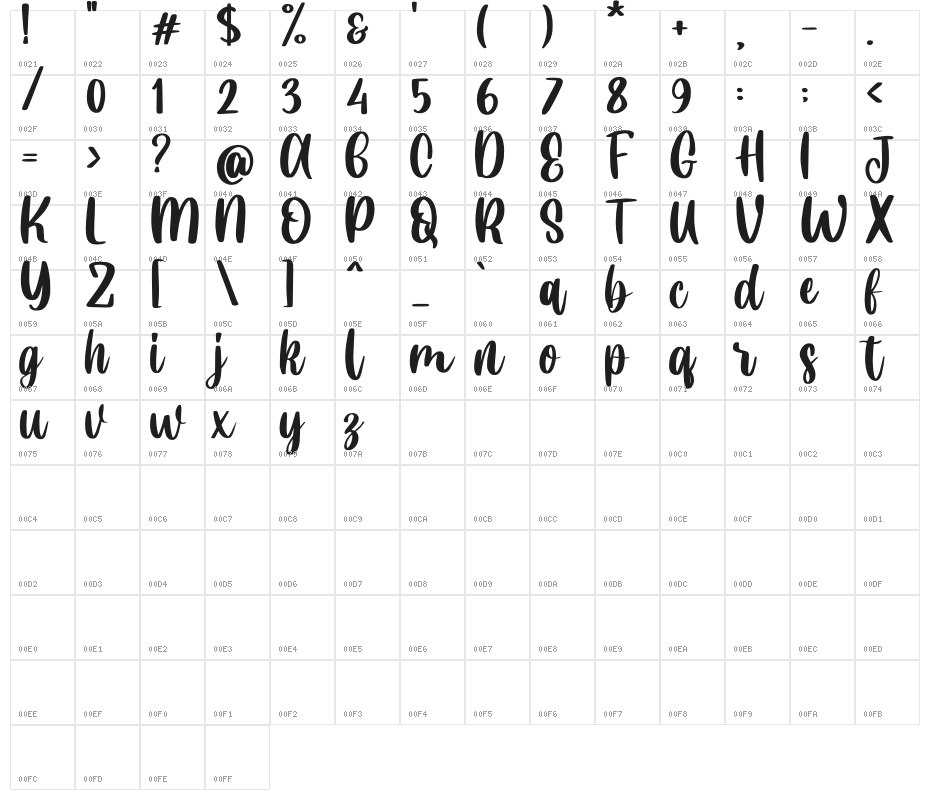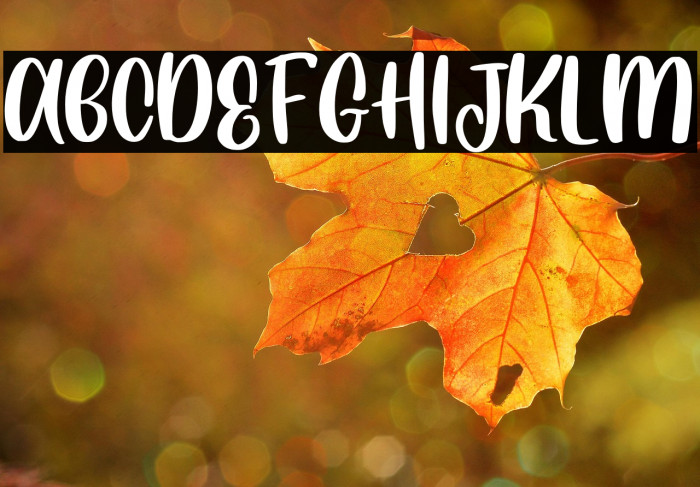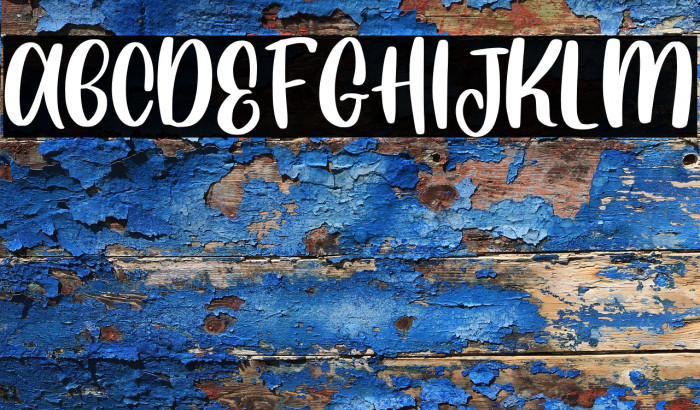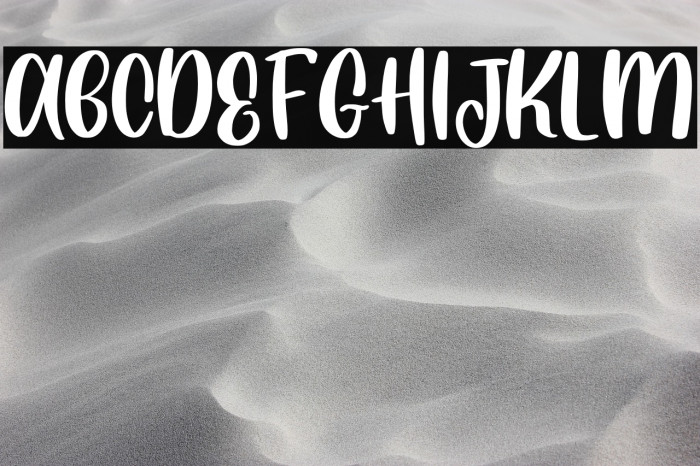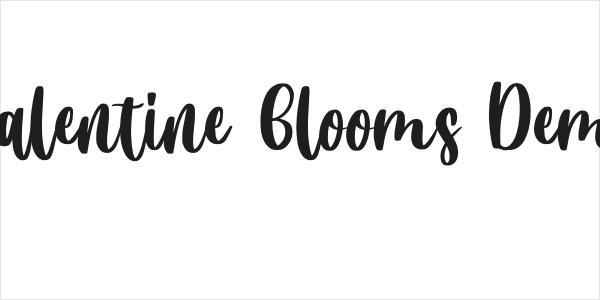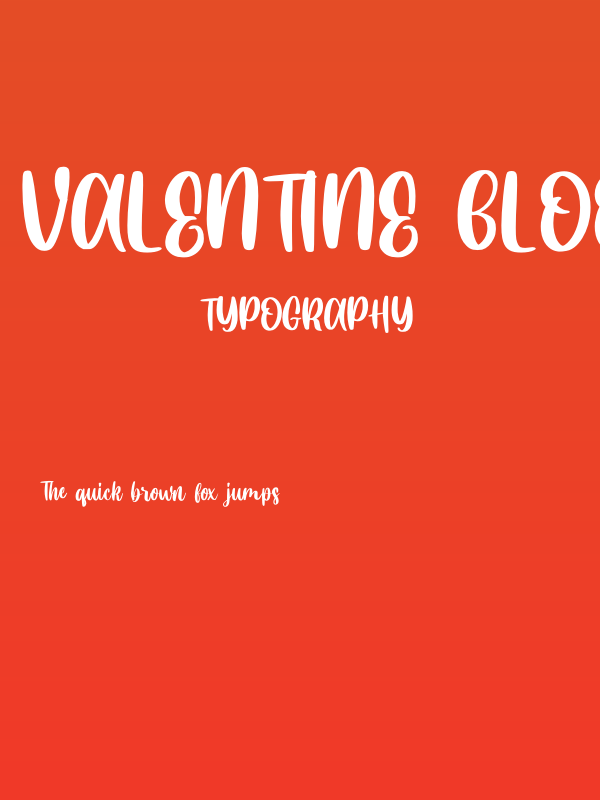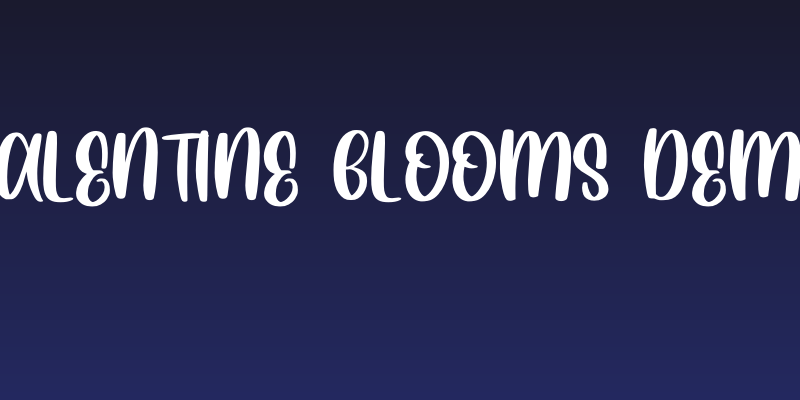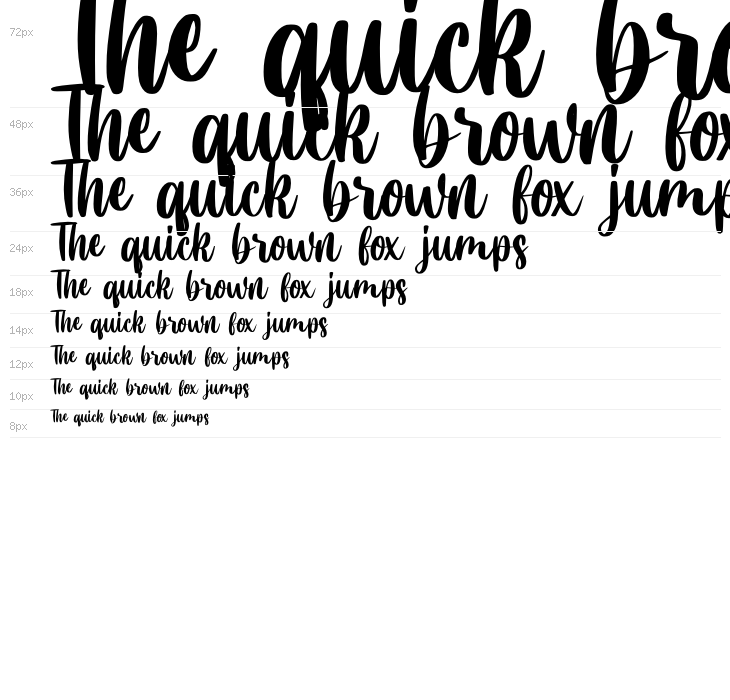
Valentine Blooms Demo Font
Valentine Blooms Demo Description
This font features a playful and flowing script style, characterized by its bold and expressive strokes. The letters are interconnected, creating a sense of movement and fluidity. The uppercase letters are tall and slightly condensed, while the lowercase letters maintain a consistent rhythm with elegant loops and curves. The numerals are dynamic, matching the overall lively aesthetic. Special characters are designed with the same attention to detail, enhancing the font's cohesive look. This font exudes a sense of warmth and creativity, making it ideal for projects that require a personal touch.